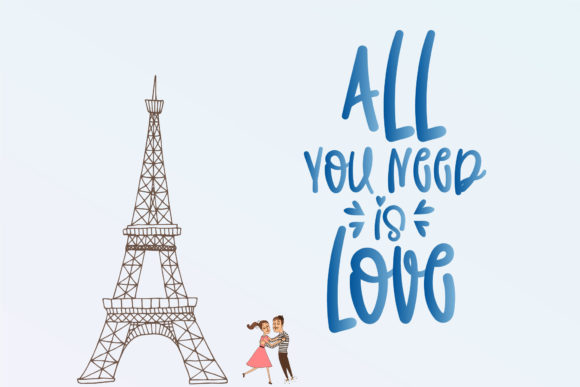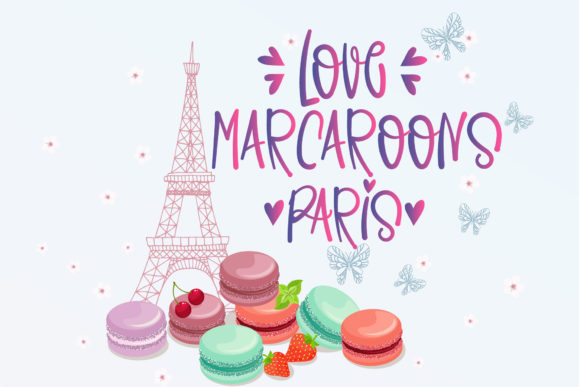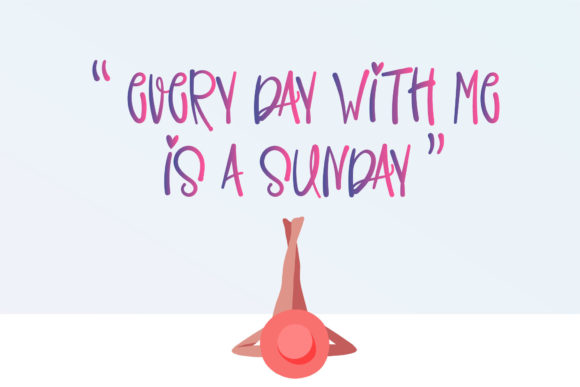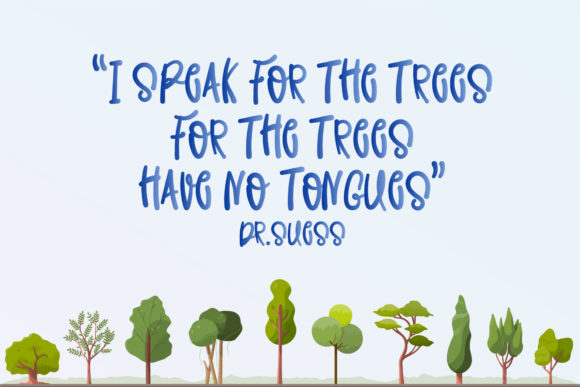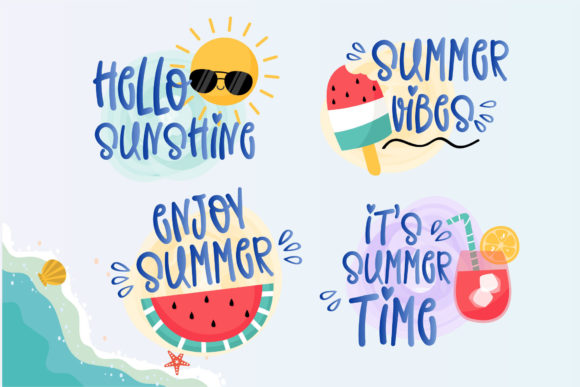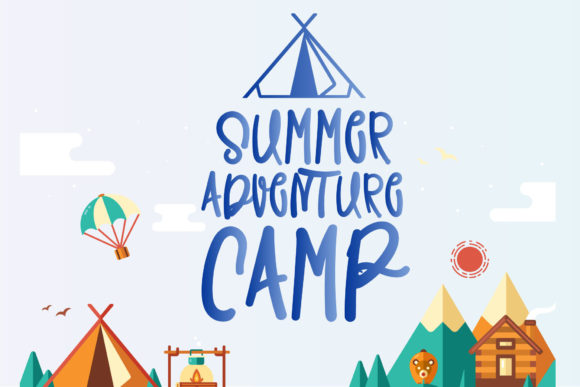
Introduction to Holiday Lover in Paris Font
Holiday Lover in Paris is an informal, friendly and trendy handwritten font.
It works well on a variety of designs that require a casual, adept touch .
Key Features of Holiday Lover in Paris Font
Why Choose Holiday Lover in Paris Font?